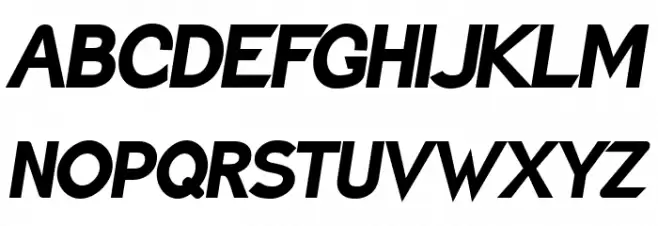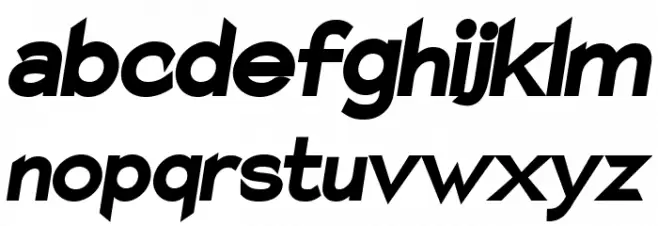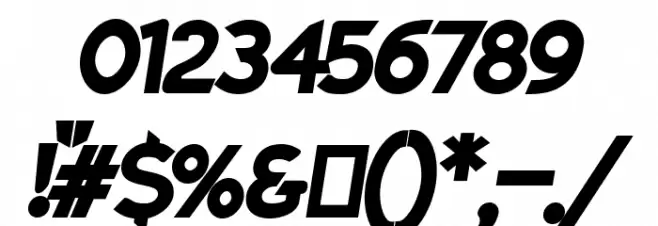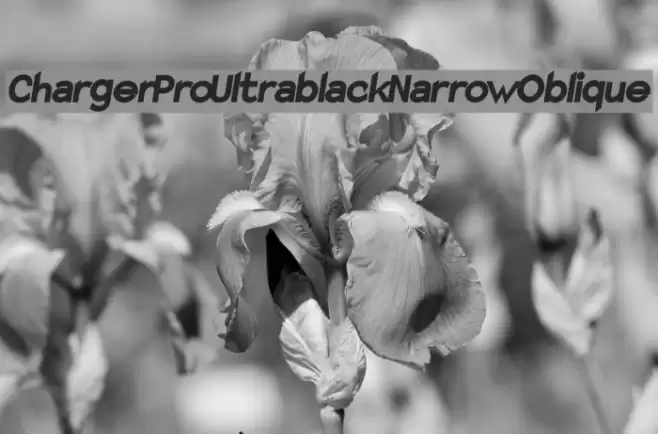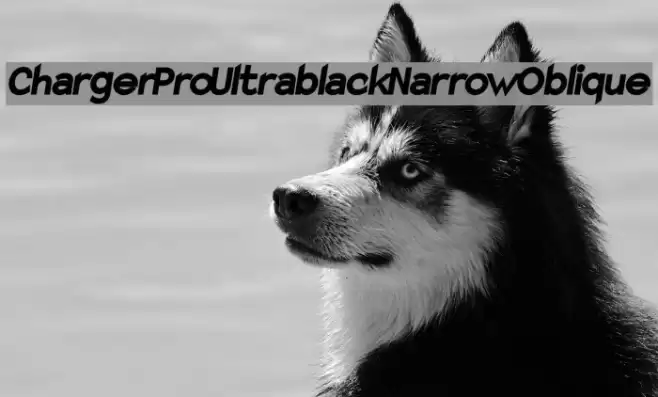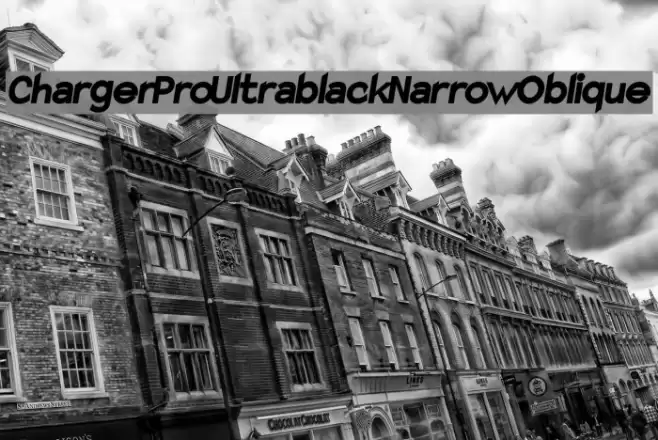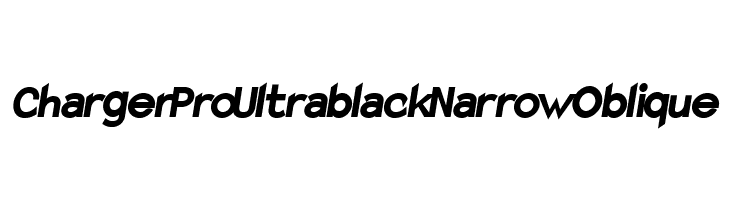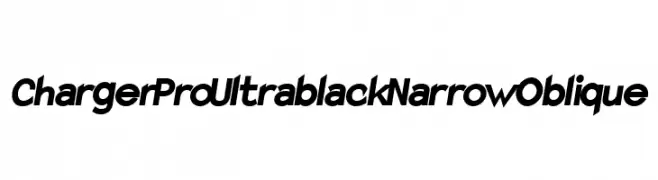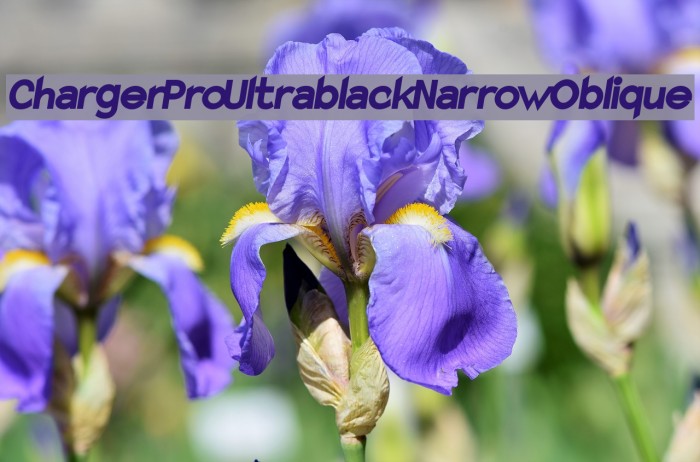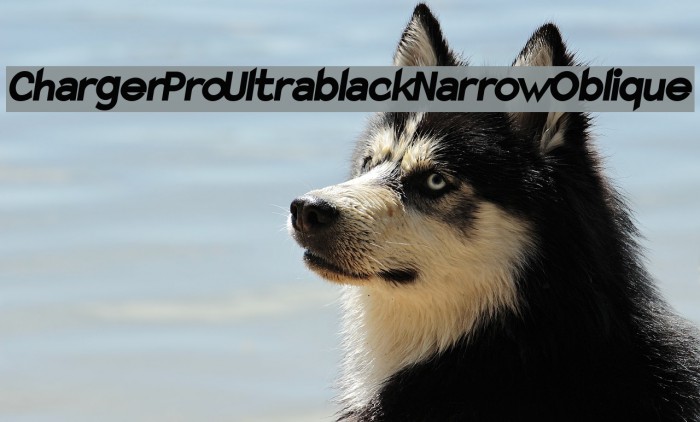
Charger Pro Ultrablack Narrow Oblique
This font features a bold and dynamic style with a strong oblique slant, giving it a sense of motion and energy. The characters are narrow, enhancing the compact and sleek appearance. The strokes are thick and consistent, providing a robust and impactful look. The uppercase and lowercase letters maintain a uniform design, ensuring readability and cohesion. The numbers and special characters follow the same stylistic approach, making them suitable for various applications. This font is ideal for projects that require a modern and assertive aesthetic.
A bold, narrow, and oblique font with a dynamic and modern style.
- Proposed Projects: Ideal for sports branding, dynamic advertisements, modern posters, and tech-related designs.
- Width: Condensed